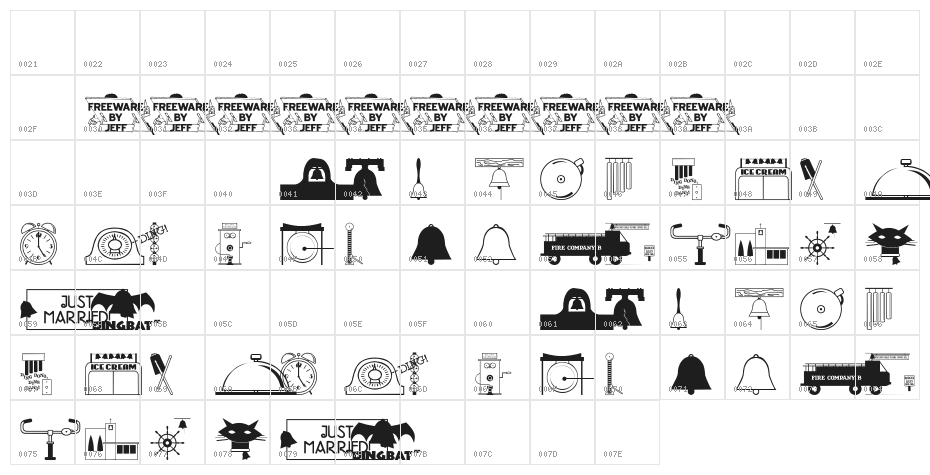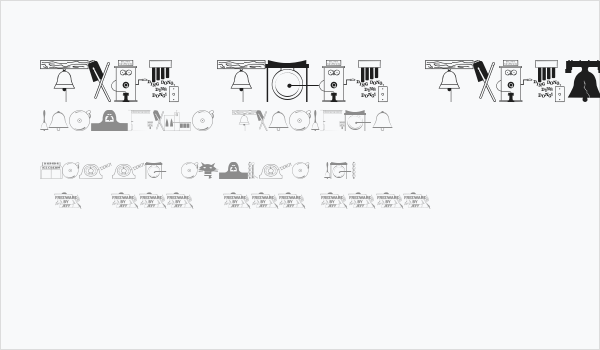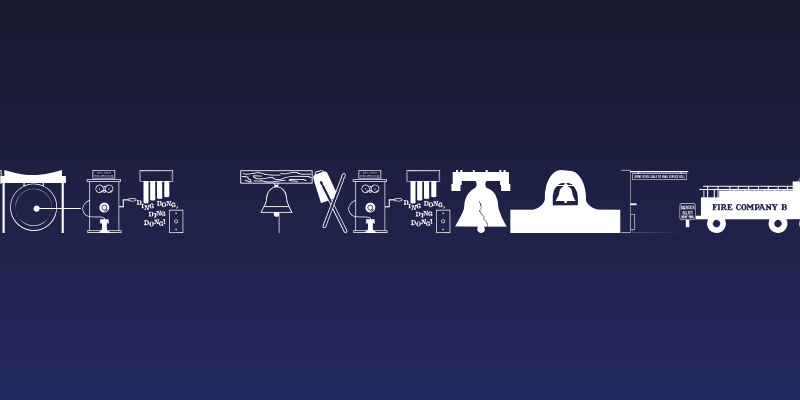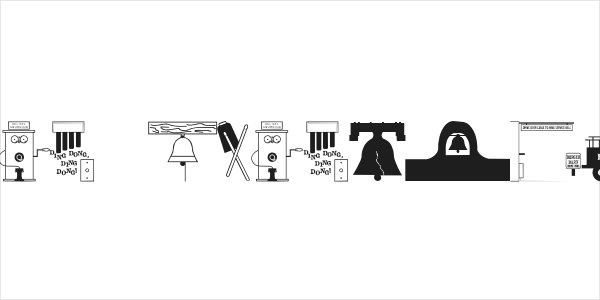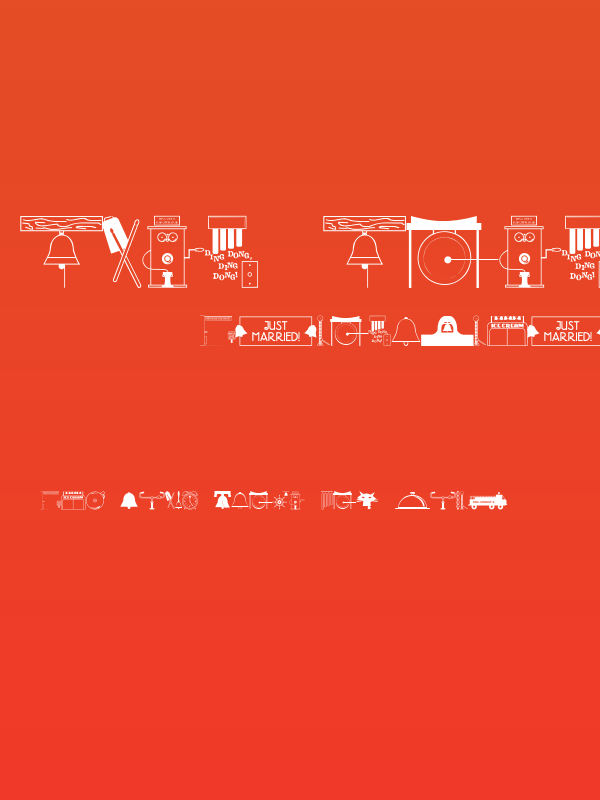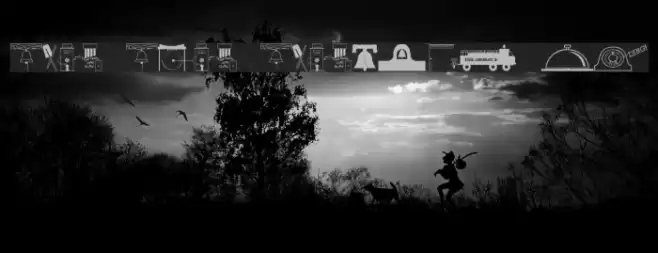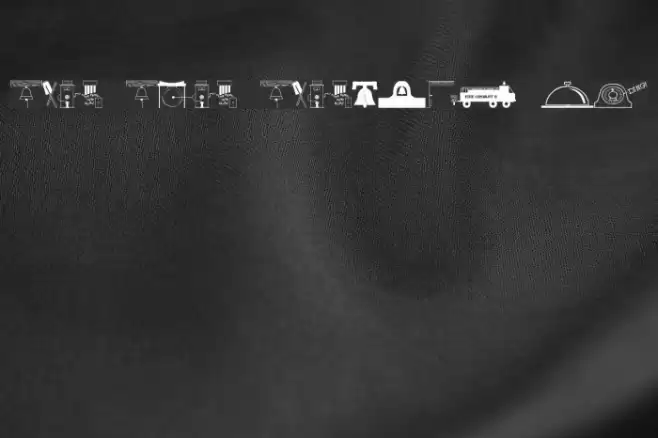
Ding Dong Dingbats JL Font
Ding Dong Dingbats JL Description
This is a decorative dingbat font featuring a variety of whimsical and thematic icons. The characters include bells, clocks, signs, and other playful symbols, each designed with a unique flair. The style is bold and graphic, making it suitable for adding visual interest to projects. The icons are detailed and varied, providing a wide range of options for creative expression. This font is ideal for projects that require a touch of fun and creativity, such as party invitations, themed posters, or playful branding materials.
| Use Case | Logos, Decorative elements, Creative projects |
| Proposed Projects | Ideal for party invitations, themed posters, playful branding, and creative projects requiring decorative icons. |